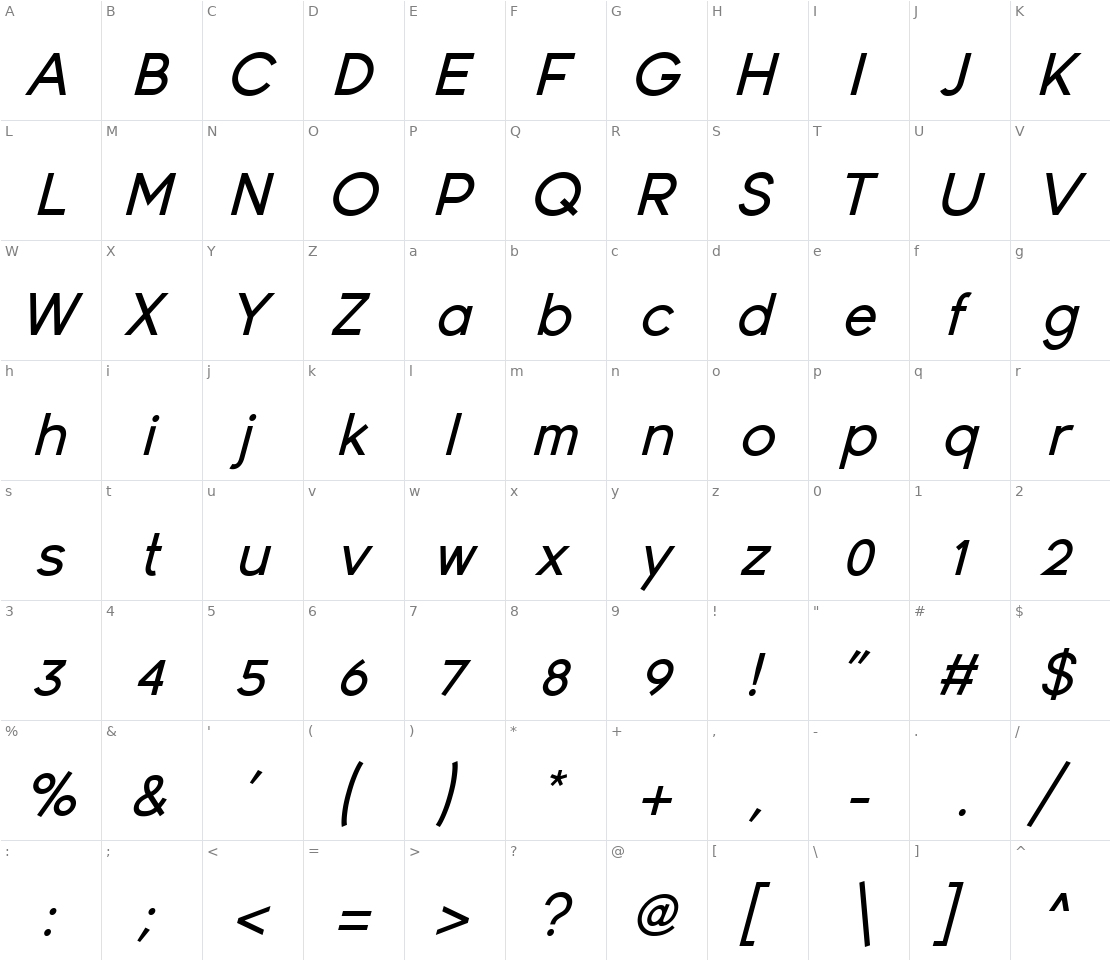
Young
by Scott Simpson
Young is a humanist sans-serif from Scott Simpson with a gentle italic slant and friendly, open letterforms that stay readable across a range of sizes. The medium weight and casual tone give it a conversational quality, more approachable than a typical geometric sans but still clean enough for professional use. Works naturally in body text, UI, and branding where you want warmth without sacrificing clarity.